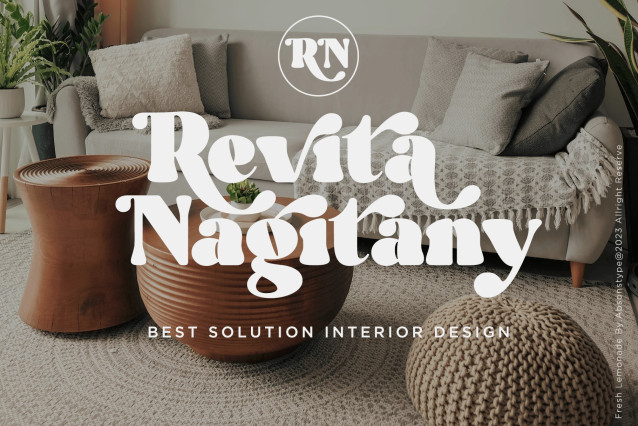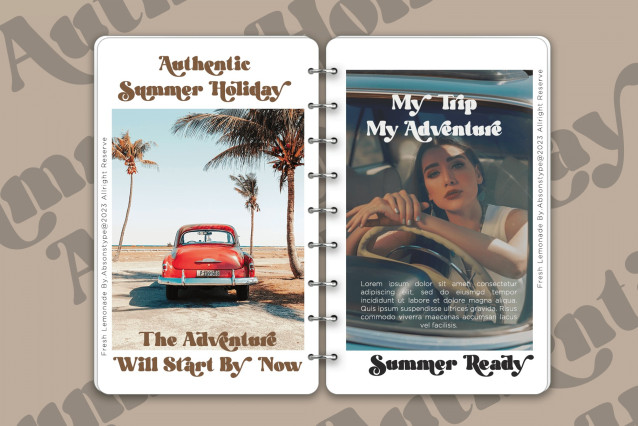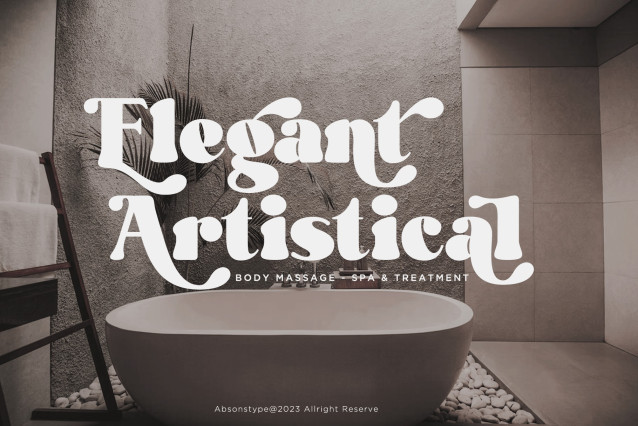
Fresh Lemonade Font
Fresh Lemonade Font is the Bold Serif display typeface with combine uppercase and lowercase looks and feel nice balanced. Provide with alternates and ligatures font in variant style make the design letter looks nice. Honestly it works perfectly for headlines, logos, posters, packaging, T-shirts and much more.